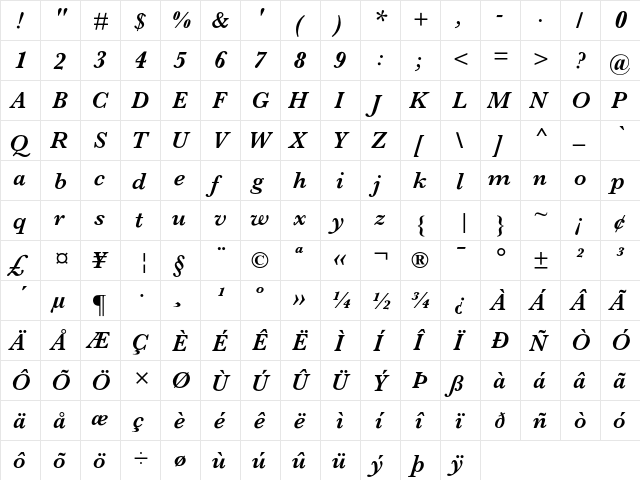
Baskerville Semi Bold Italic
Design Context for Baskerville Typeface
Baskerville is a composed and adaptable typeface that performs quietly and consistently across a wide range of design contexts. The dynamic lean of this cut emphasises speed and emphasis in any layout. The heavy weight commands attention and anchors typographic hierarchies.
Pro Tip: Use Baskerville for emphasis, pull quotes, and subheadings where its slanted energy can add rhythm to the layout.